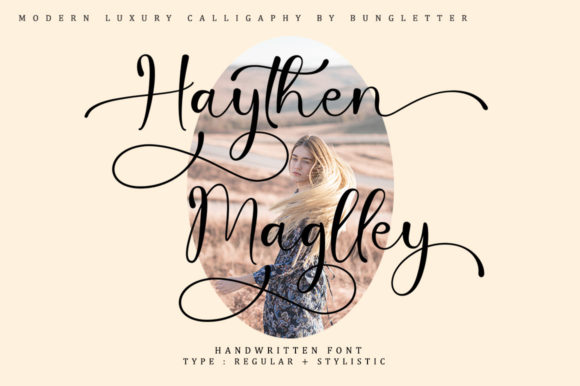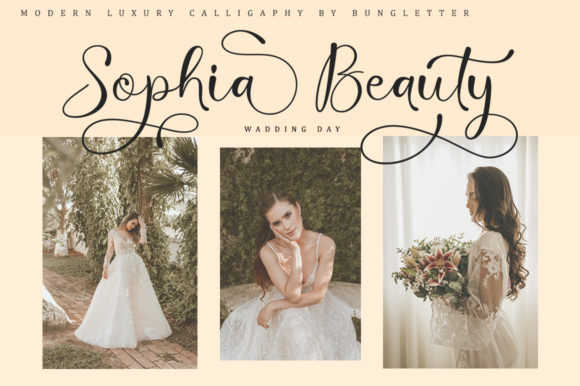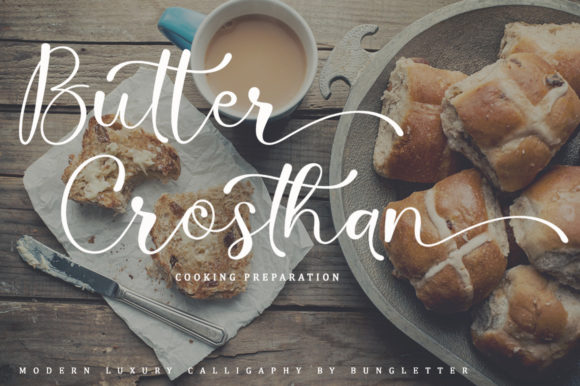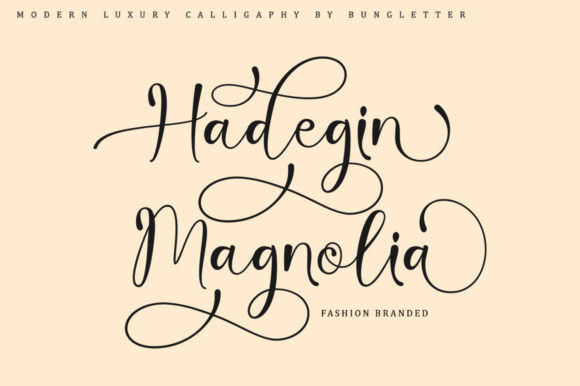
Haythen Maglley Font
About the Haythen Maglley Font
Add a touch of class to your work with the Haythen Maglley Font, a truly exceptional typeface. Haythen Maglley is a modern luxury script font, that comes with a beautiful character and vibe.
Haythen Maglley is interesting because the typeface is pleasing to the eye, clean, glamorous, simple and very easy to read. This font is PUA encoded, which means you can access all of the glyphs and swashes with ease!
Haythen Maglley’s elegant and clean style makes it ideal for headlines, logos, and short text-based branding projects where sophistication is key. It also works well on invitations, packaging for high-end products, and short, impactful posters. However, its delicate nature makes it unsuitable for body text or UI elements requiring high readability at small sizes. Extended use could lead to fatigue.
Pairing Haythen Maglley effectively requires considering its luxurious script form. A clean sans-serif like Montserrat or a geometric sans-serif such as Futura would create a modern contrast, balancing its delicate curves. For a more traditional feel, a classic serif font like Garamond or Times New Roman could work, providing a sense of timeless elegance.
The overall personality of Haythen Maglley is sophisticated and modern, leaning towards luxury and elegance without being overly fussy. It projects a sense of refined quality and is best suited for brands and projects communicating premium products or experiences.
Haythen Maglley Font Usage Examples
Haythen Maglley Font Example